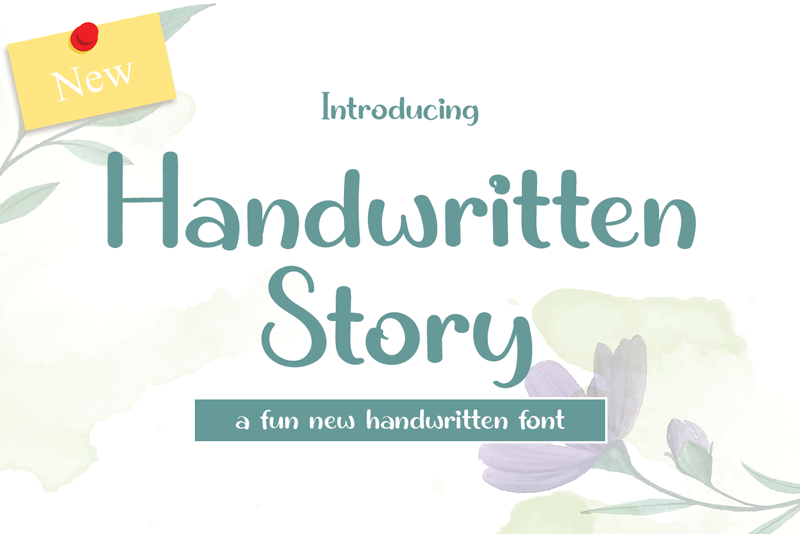
Handwritten Story is a sweet and cursive handwritten font. This gentle font will look gorgeous on a variety of design ideas. It will add a joyful and romantic touch to each of your projects! Attention : Handwritten Story handwriting Font is prohibited to use this font for commercial purposes or for profit without the permission of the author/admin, without being known to use this font without permission, will be subject to sanctions 5x the specified price. This font is used only for demos (Demo license) If you want to use this font for commercial use please contact email: elllulukstudio123@gmail.com or click the link below: https://www.creativefabrica.com/product/handwritten-story/ref/761303/ If you want to see more other fonts, please click: https://www.creativefabrica.com/designer/el_hotcig/ref/761303/ Any donations are very appreciated. Paypal account for donation: https://www.paypal.com/paypalme/luluk783 thanks. |